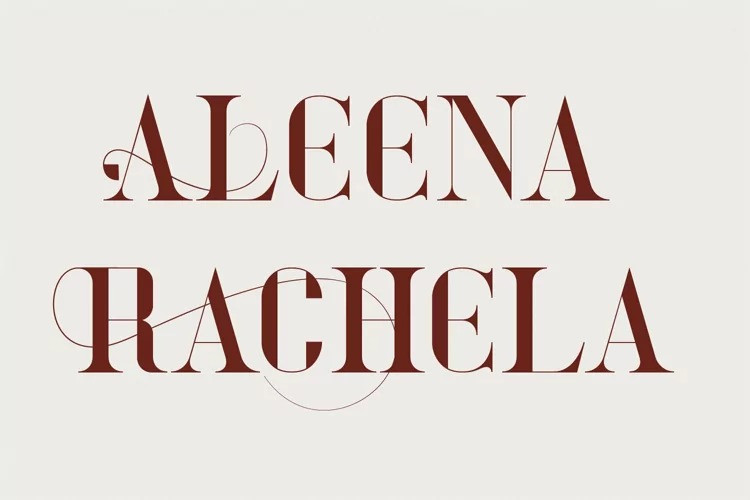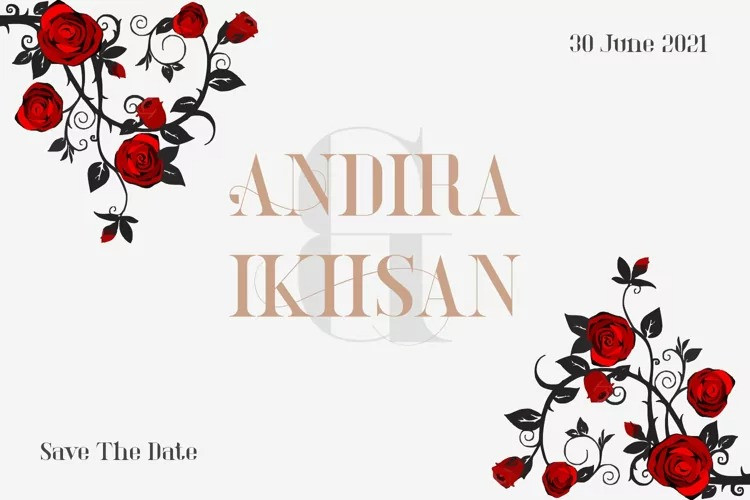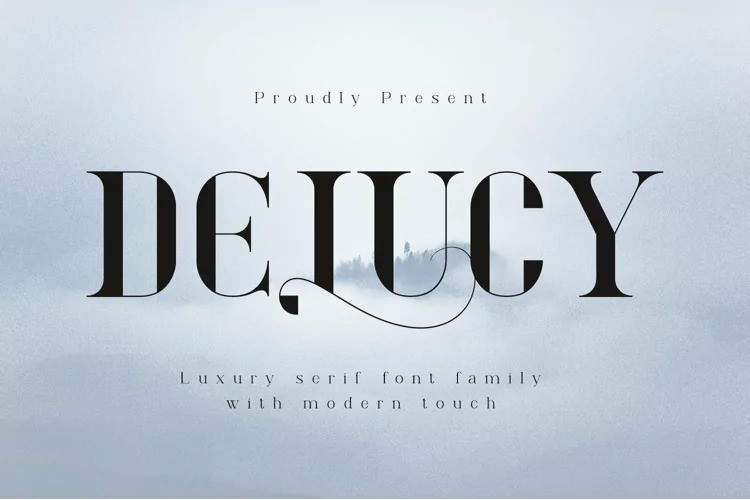
Delucy Serif Font
Delucy, a new serif font that is charming, sophisticated, and luxurious. A very versatile font for your design projects, both large and small.
This font is made for those of you who need a font with a sophisticated and luxurious style, especially for large design projects. This font is also provided with several alternative fonts, so that they can be adapted to your project.